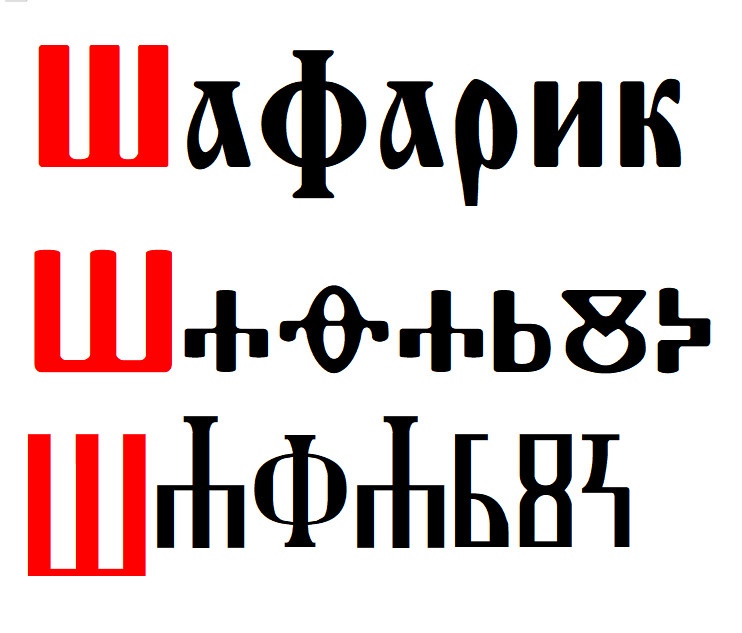
Shafarik Unicode Font
Shafarik Unicode Font is perfect for Slavic linguistic research, academic publishing projects, historical manuscript reproduction, Slavonic cultural materials, scholarly educational content, linguistic documentation systems, cultural heritage preservation, and intellectual advertising campaigns. This scholarly typeface works magnificently in both digital applications and print media where linguistic scholarship and Slavonic academic excellence are fundamental design requirements.
What makes Shafarik Unicode Font so exciting is its profound interpretation of Slavonic linguistic scholarship through academically precise letterforms that honor the same intellectual rigor and scholarly dedication that defined Pavel Jozef Šafárik's groundbreaking contributions to Slavic studies and linguistic research. The font features scholarly characters with academic proportions, linguistic curves, and intellectual details that communicate educational authority, research excellence, and the systematic approach necessary for serious linguistic and cultural scholarship. Its intellectual personality and academic heritage make it ideal for educational institutions seeking to establish scholarly credibility while serving researchers and students who value rigorous academic standards in Slavonic studies.
The Shafarik Unicode Font family includes comprehensive Unicode support for multiple Slavonic scripts with different scholarly intensities, along with academic alternates and linguistic ornamental elements. Each style maintains the typeface's scholarly character while offering extensive character sets including historical Slavonic letters, academic numerals, scholarly punctuation marks, and special symbols designed to enhance educational communications and linguistic branding efforts across various academic contexts.
This remarkable typeface represents the perfect convergence of linguistic scholarship and contemporary academic typography for educational and research institutions. Whether you're developing Slavonic studies program identities, creating academic research materials, or designing linguistic education campaigns, Shafarik Unicode Font Free Download provides the scholarly authenticity and versatility needed to serve the academic community. The font's intellectual approach makes it particularly effective for universities, research institutes, linguistic societies, and organizations dedicated to the scholarly study and preservation of Slavonic languages and cultural heritage.
The meticulously engineered scholarly construction and optimized academic performance in Shafarik Unicode Font ensure maximum intellectual authority while maintaining clear communication across all educational applications. Its academic presence makes it ideal for scholarly branding, educational marketing materials, and linguistic communications where its full academic character can create lasting credibility and establish immediate association with intellectual rigor, scholarly excellence, and the profound contribution of linguistic research to human understanding of Slavonic cultural heritage.